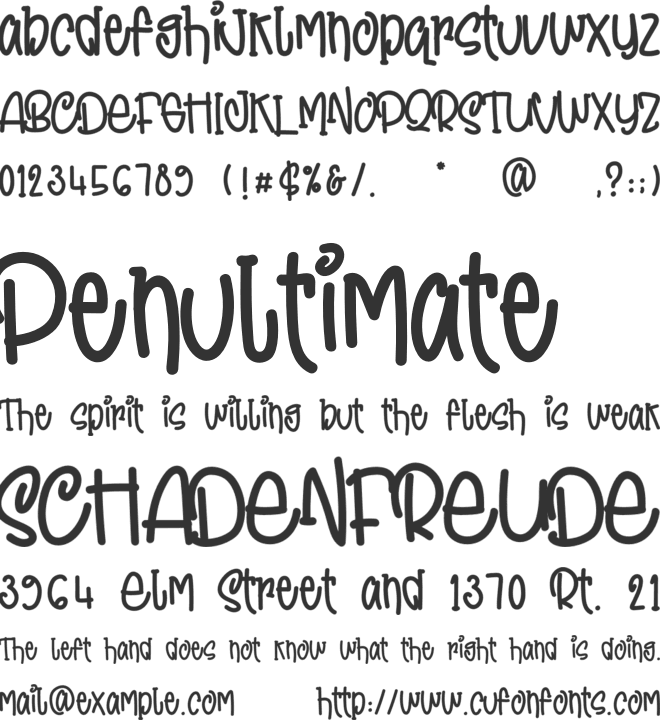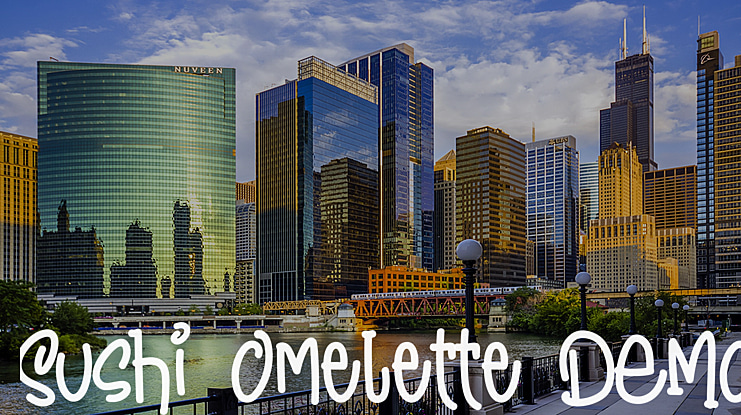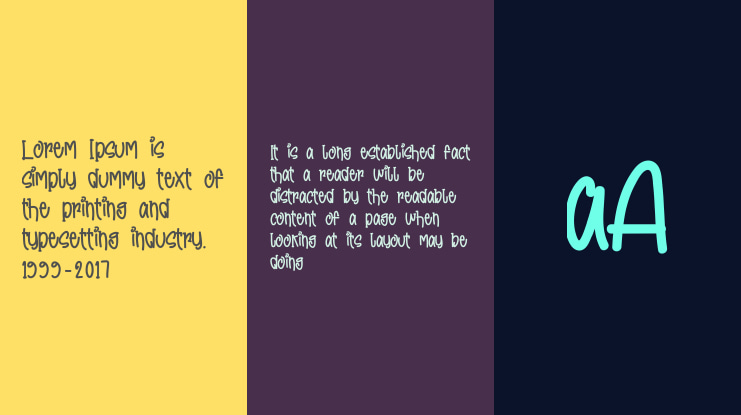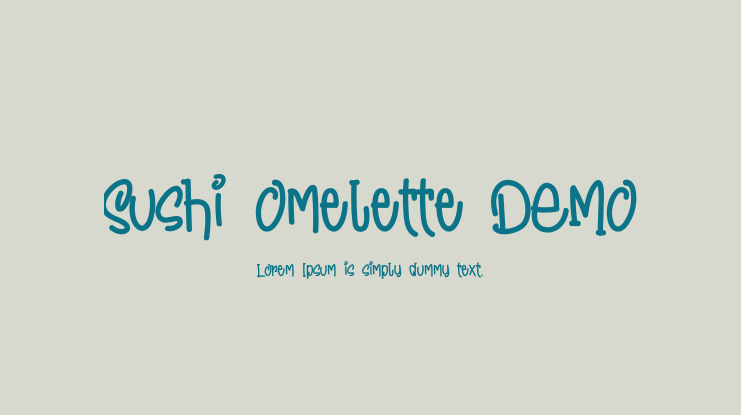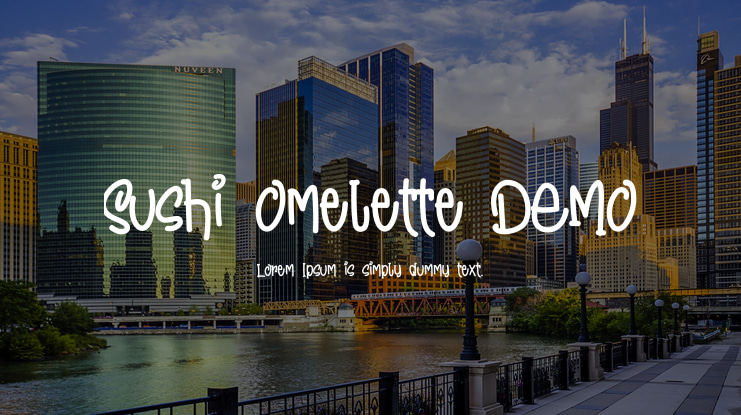
Sushi Omelette DEMO Font
A fun hand-written font 252 glyphs, 160 Ligature Characters and doodle vector. With the character Happy n Fun, it is amazing for your design project, such as Kids apparel, Packaging design, Resto, Cafe, Greeting and more.